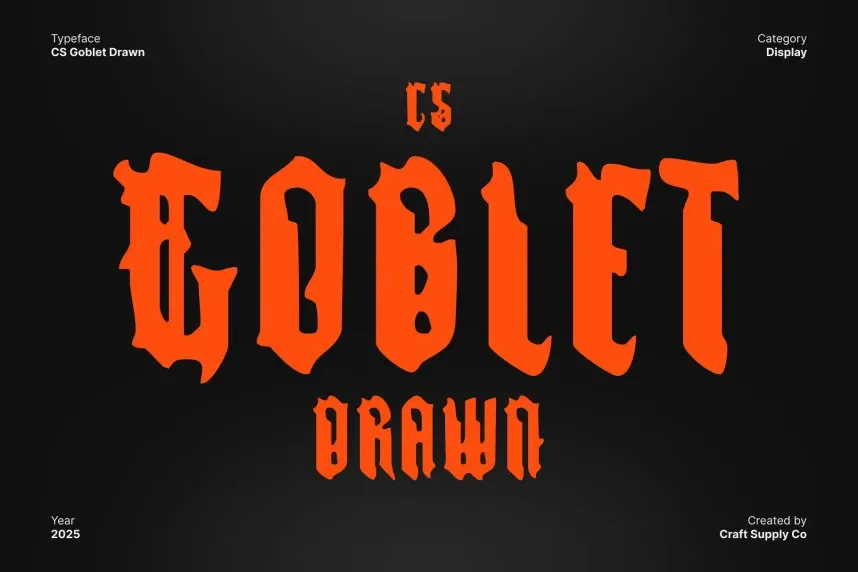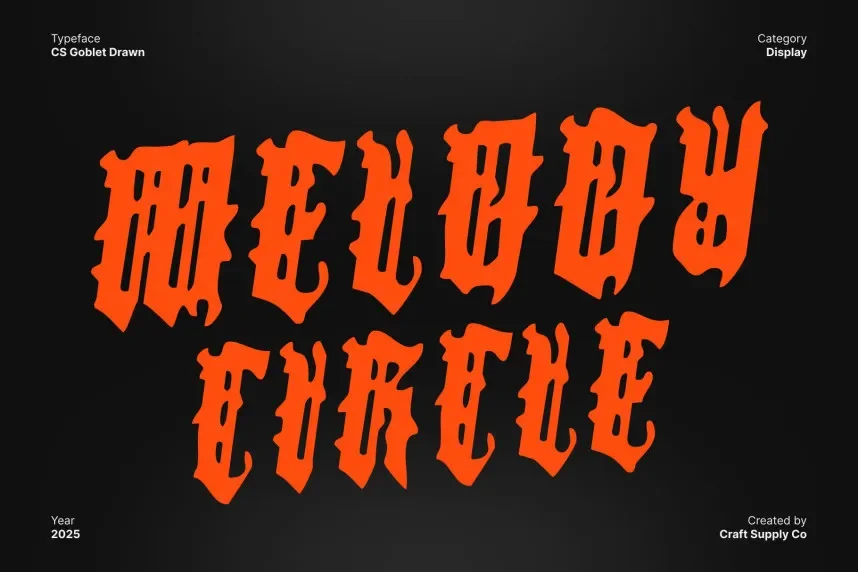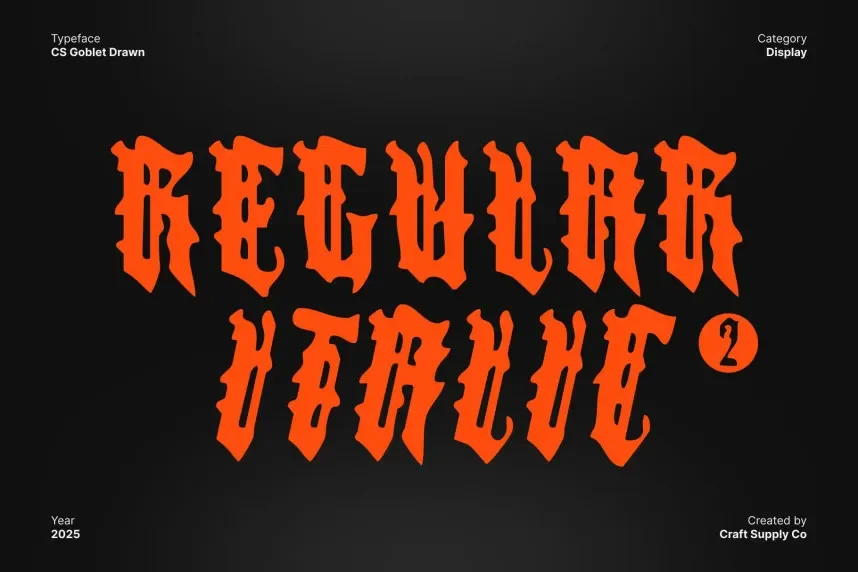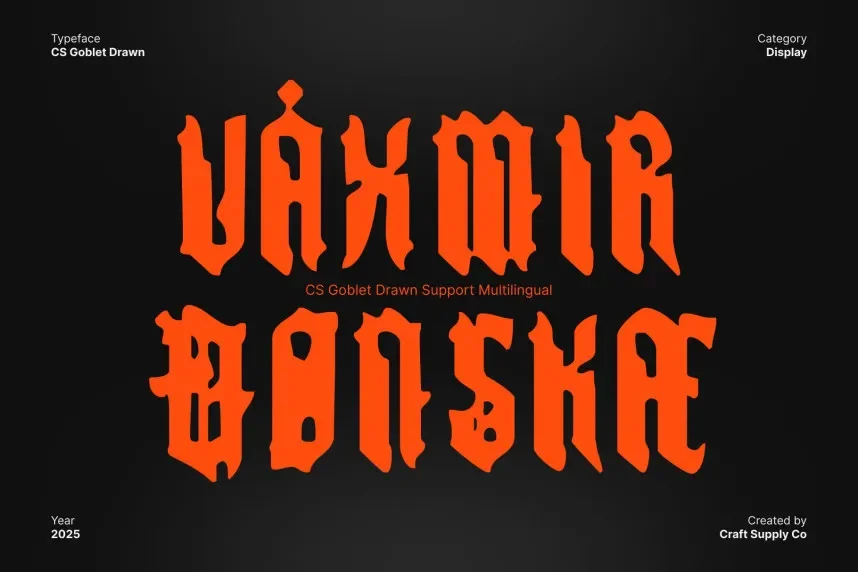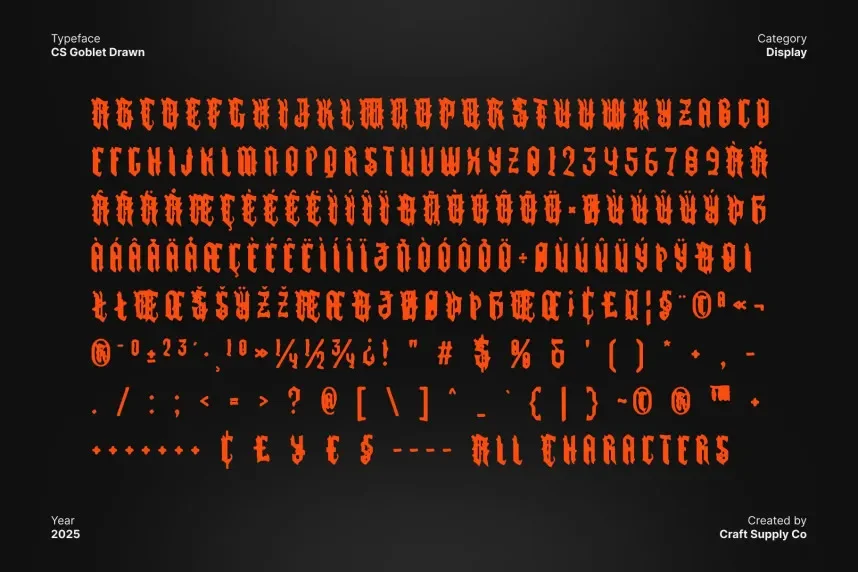
CS Goblet Drawn Font solves the problem of needing a refined yet artistic font for upscale designs. It’s ideal for projects requiring both elegance and a personal touch.
CS Goblet is a display font with smooth, flowing strokes and classic curves. The font’s graceful design gives it a timeless appeal, making it perfect for both traditional and modern branding.